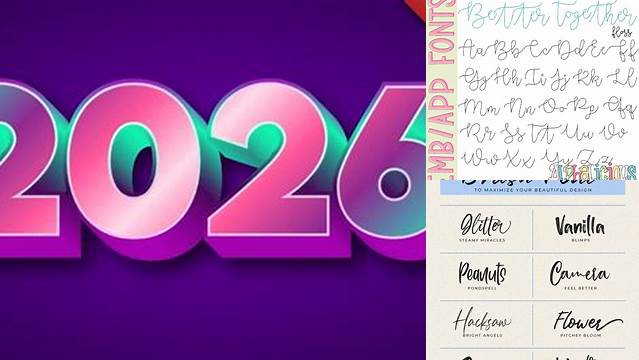
Script Fonts 2026: Download Free & Unleash Your Creativity!
Hey there, font fanatics! Looking for the freshest script fonts to jazz up your projects in 2026? You're in the right place! This guide is your ultimate resource for finding and free downloading stunning script fonts. Whether you're a seasoned designer, a budding creative, or just someone who loves a good font, get ready to dive into a world of elegant curves, stylish swashes, and everything in between. We'll explore a range of script fonts – from the classic and sophisticated to the modern and playful – all ready for you to download and use. Let's get started and unlock the power of typography to create something amazing! So, buckle up, because you're about to discover some seriously cool fonts.
H2: Exploring the World of Script Fonts: A 2026 Overview
Alright, guys, before we jump into the download links, let's get familiar with script fonts. New script fonts 2026 are designed to mimic handwriting, calligraphy, and brush strokes. They bring a touch of personality, elegance, and a human element to your designs. They can be used for a vast range of projects, including logos, invitations, social media graphics, website headers, and even body text (though use sparingly!). These fonts are categorized into various sub-genres, each with its own unique style and feel. You'll find everything from formal scripts that exude sophistication to casual scripts that feel friendly and approachable. The beauty of script fonts lies in their versatility. A single font can transform the entire look and feel of a design, making it more captivating and memorable. Many new script fonts 2026 feature alternate characters, ligatures, and swashes. These extra features allow you to customize your text further and create a truly unique look. When you're choosing a script font, consider the overall mood you want to convey. Think about the target audience of your project. Do you want to create a sense of luxury, playfulness, or professionalism? The right script font can help you achieve your goals. Also, make sure the font is legible at various sizes. Script fonts can sometimes be challenging to read, especially in small sizes, so pay attention to readability. In 2026, we're seeing even more innovative designs and creative uses of script fonts, so now is a great time to explore the world of script fonts! These fonts will be a cornerstone of design that will make your design stand out from the crowd. These type of font are beautiful and are a must have to any designer out there.
H3: The Rise of Script Fonts: A Deep Dive into 2026 Trends
New script fonts 2026 aren't just about aesthetics; they're about communication, emotion, and visual storytelling. The latest trends show a growing interest in fonts that blend traditional calligraphy with modern design elements. You'll see a lot of experimentation with textures, like incorporating subtle brush strokes or distressed effects to give the fonts a handcrafted feel. Minimalism is also influencing the script font world. Clean, elegant scripts are becoming more popular for their versatility and ability to work well in various applications. Look for fonts that have a balanced mix of elegance and simplicity. Another significant trend is the use of script fonts in branding. They're excellent for conveying a sense of authenticity, personality, and uniqueness, which is why they're a favorite for logos, business cards, and marketing materials. In 2026, we'll see designers pushing the boundaries of what's possible with script fonts. Expect to find more dynamic designs and intricate details that can breathe life into every project. The ability to freely download new script fonts 2026 will enhance your projects. There will be a strong focus on legibility. While script fonts can be elaborate and decorative, they also need to be easy to read. Designers are working to balance the decorative elements with clear letterforms to maintain readability. As a trendsetter, you can incorporate this font into your creative designs to set a new trend. To keep up with the trend, you need to stay ahead of the game, and what better way to do it than by downloading it today.
H2: Types of Script Fonts: Exploring Different Styles
Script fonts are so much more than just pretty handwriting; they come in all shapes and forms. Let's dive into the various styles you can expect to find in 2026. The styles vary, so you'll be able to find one that suits your needs. Formal scripts are the epitome of elegance and sophistication. They often mimic traditional calligraphy, featuring delicate lines, graceful curves, and a refined aesthetic. These fonts are ideal for invitations, wedding announcements, and high-end branding. Casual scripts are more relaxed and informal. They're designed to look like handwriting, with a more organic and approachable feel. These are great for projects that need a touch of personality, like social media posts, greeting cards, and informal invitations. Brush scripts emulate the look of a brush or marker, with thick strokes and a dynamic appearance. This style is perfect for creating bold statements, adding a sense of energy, and injecting a handcrafted vibe into your designs. Modern scripts often blend traditional calligraphy with contemporary design elements. They can have unique twists and characteristics. This is great for logos, websites, and other projects that need a fresh and current look. Script fonts come in handy in many ways. You can express your thoughts and ideas through the use of script fonts. You can also use them in different applications. Having a grasp of the styles is the key to successfully incorporating script fonts.
H3: Formal, Casual, and Brush Script Fonts: Decoding the Styles
Knowing the different styles is crucial when choosing the perfect script font for your project. Formal script fonts, as the name suggests, exude formality and sophistication. Think of them as the tuxedo of the font world, best suited for occasions like weddings, gala events, and luxury branding. They possess a timeless appeal with their delicate lines, elegant curves, and often intricate letterforms. These fonts evoke a sense of tradition and grace. Casual script fonts offer a more relaxed and approachable vibe. They're like your favorite jeans and t-shirt. These fonts are more organic and free-flowing, often imitating everyday handwriting. They are your go-to choice for personal projects. Brush script fonts are dynamic and energetic, giving a raw, handcrafted feel to your designs. They often use thick strokes that appear as if they were made with a brush. Brush scripts are excellent for creating impact and making your design stand out. They are ideal for branding, packaging, and headlines where you want to make a bold statement. Each style offers a unique character, and understanding their differences allows you to choose the right one for your message. As a result, the right choice can effectively communicate the tone of your message.
H2: Commercial Use vs. Personal Use: Understanding Font Licenses
Okay, let's talk about the often-confusing world of font licenses. When you download new script fonts 2026, it's essential to understand the terms of use. Most free fonts come with a license, which specifies how you can use the font. A personal use license typically means you can use the font for non-commercial projects. This includes personal blogs, social media posts that are not for business purposes, and any other projects that don't generate revenue. Commercial use licenses are different. They allow you to use the font for business purposes, such as logos, marketing materials, websites, and products that are sold. Some fonts are free for commercial use without restrictions, while others may require you to credit the designer or purchase a license. Always carefully read the font's license agreement before using it in any project. The license will tell you the permitted uses, restrictions, and any additional requirements. Understanding the difference between personal and commercial use can save you from legal issues down the road. If you're unsure, always err on the side of caution and contact the designer or font foundry to clarify the terms. You may have to pay extra to use it commercially, but it is better to be safe than sorry. Check the license. Follow the guidelines, and you'll be on your way.
H3: Demystifying Font Licenses: Personal and Commercial Use Explained
Understanding the nuances of font licenses is crucial, especially if you're looking to download new script fonts 2026 for various projects. A personal use license typically grants you permission to use the font for non-commercial purposes. Think of it like using a font for your personal blog, creating social media graphics for fun, or designing a birthday invitation for a friend. The key here is that you're not using the font to make money or generate revenue. Commercial use licenses, on the other hand, open up a whole new world of possibilities. They allow you to use the font for business purposes, which includes things like branding, logos, marketing materials, website design, and products that you sell. However, even with a commercial license, there might be restrictions. Always carefully read the license agreement. Some licenses may require you to credit the font designer, while others may have limitations on the number of uses or the types of products you can sell. It's essential to comply with these terms to avoid any legal issues. If a font is marked as